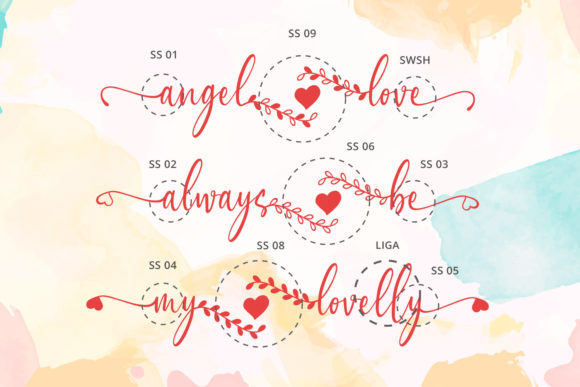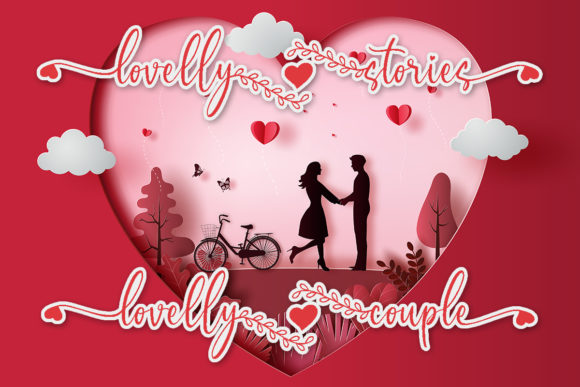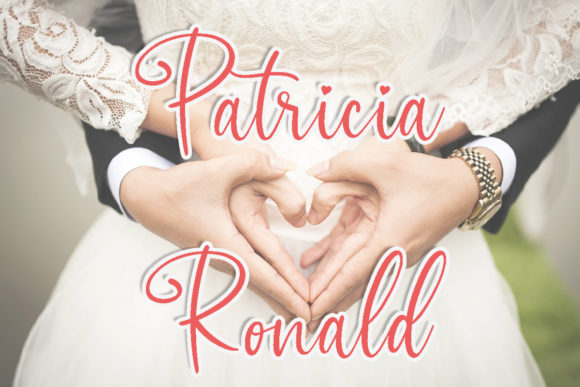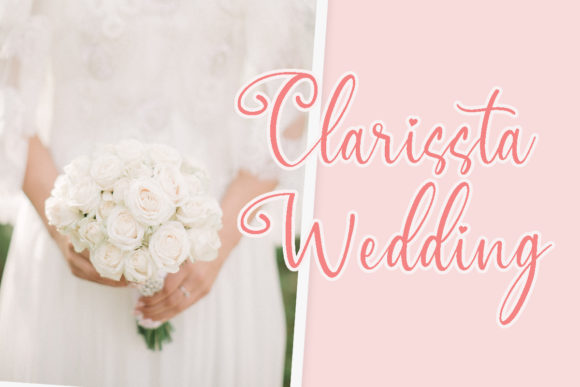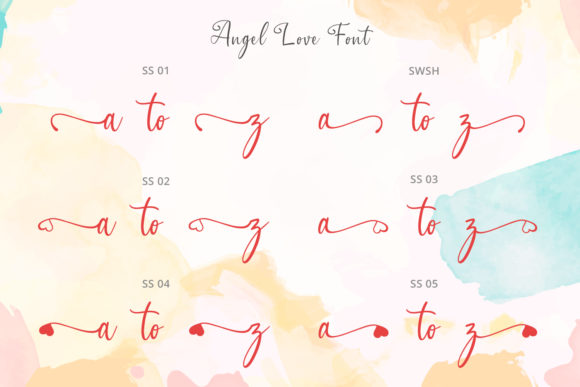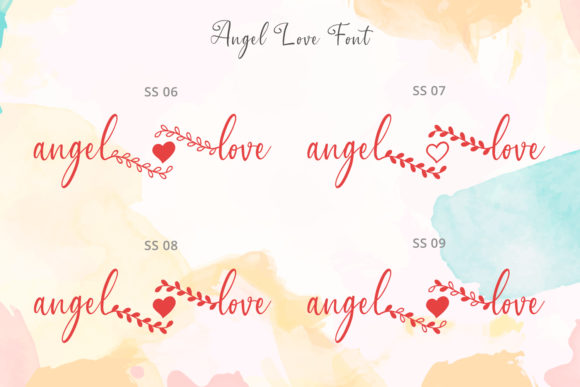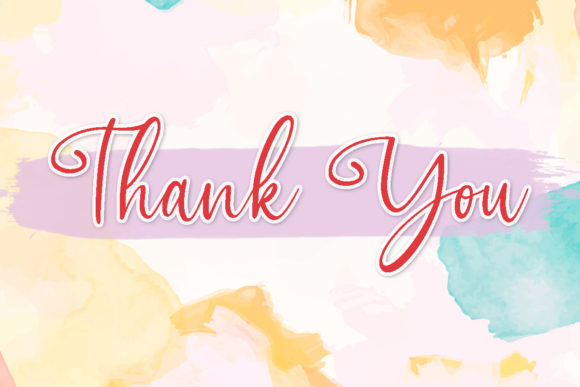
Angel Love Font
About Angel Love Font
Angel Love is a beautiful and romantic handwritten font. It features gorgeous swashes and ligatures that make this script incredibly versatile. Fall in love with its authentic feel and use it to create gorgeous wedding invitations, beautiful stationary art, eye-catching social media posts, and cute greeting cards.